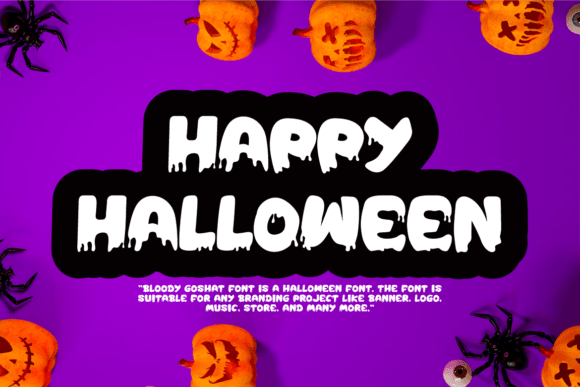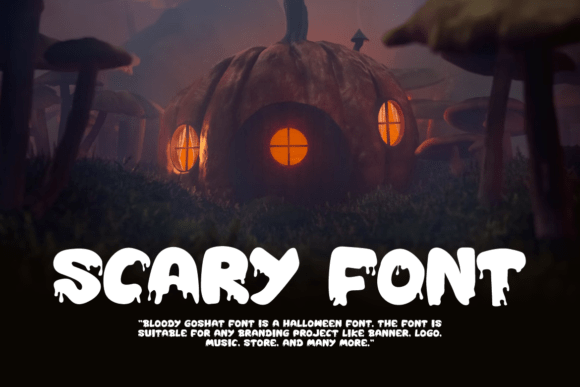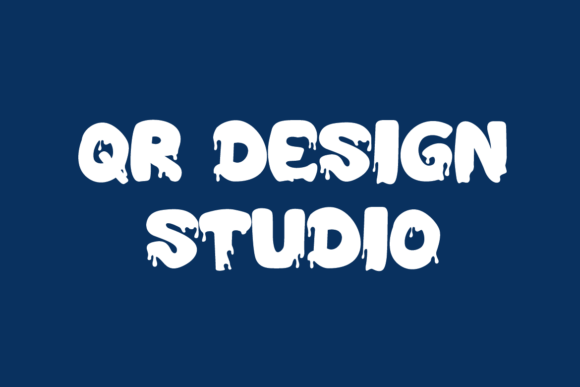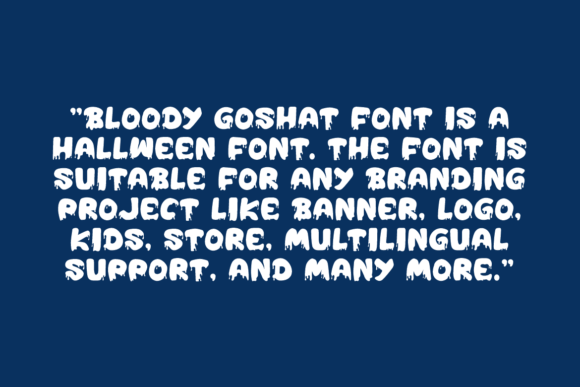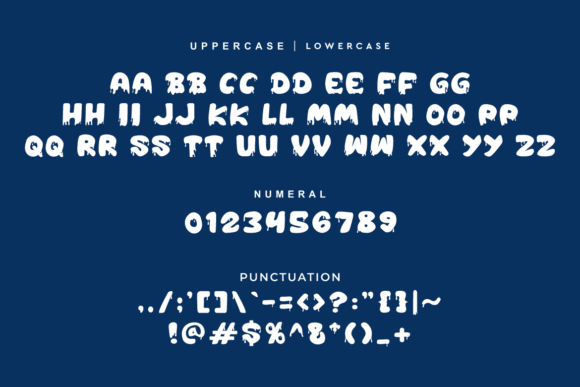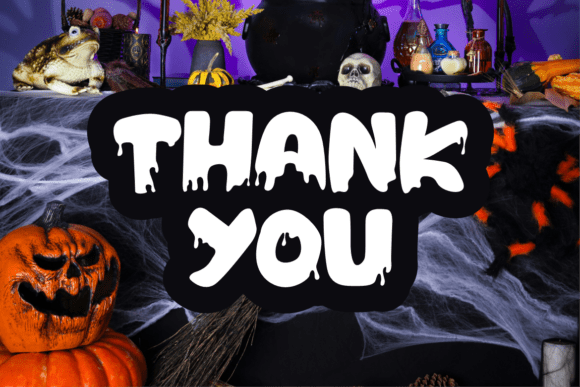
The Perfect Font for Your Creepy Masterpiece
This unique and spooky decorative font is designed to elevate your creative ideas to new heights. With its masterful design, Bloody Goshat Font is the perfect addition to any project that needs a touch of darkness and mystery. Whether you’re a seasoned designer or just starting out, this font has the potential to take your work to the next level.
Bloody Goshat Font Key Features
- Font Family: Bloody Goshat Font is a unique, handwritten font designed for creative and artistic purposes.
- Unique Characteristics: Features a distressed, hand-painted look with irregular brushstrokes and ink bleeds, perfect for adding a touch of raw emotion to designs.
Bloody Goshat Font Review
I was excited to dive into the Bloody Goshat font, but my experience was a mixed bag. Here’s my honest review.
- Unique aesthetic: The Bloody Goshat font has a distinctive, macabre feel that’s perfect for horror or dark-themed projects.
- Good legibility: Despite its unconventional design, the font is surprisingly easy to read, even at smaller font sizes.
- Highly customizable: The font comes with a range of OpenType features and ligatures, allowing for a high degree of customization.
- Limited language support: The font only includes a basic set of Latin characters, which may be a limitation for projects that require support for other languages.
- No bold or italic versions: The font is only available in regular weight, which may make it difficult to use in certain design contexts.
- Some characters feel incomplete: A few characters, such as the lowercase ‘a’ and ‘e’, feel like they’re missing something – possibly due to the font’s experimental nature.
Overall, I’d say the Bloody Goshat font is a great choice for designers who want to add a touch of darkness to their projects. However, its limitations may make it less suitable for more complex design tasks.
Bloody Goshat Font: A Practical Application Guide
For the best results, use the Bloody Goshat Font in bold or italic to add emphasis. Experiment with different font sizes and combinations to create a unique look.
The Bloody Goshat Font is ideal for horror-themed designs, punk rock graphics, and edgy typography. Use it to create attention-grabbing headlines or add a touch of rebellion to your branding.
Alternatives to Bloody Goshat Font
Pacifico is a beautiful, elegant script font perfect for creative and artistic designs. It’s ideal for use in headings, titles, and quotes, adding a touch of sophistication and luxury to any design.
Compared to Bloody Goshat Font, Pacifico is more refined and sophisticated, while Bloody Goshat Font has a more edgy and distressed look.
Great Vibes is a stylish, cursive font that’s perfect for use in invitations, posters, and other creative projects. It’s ideal for adding a touch of elegance and sophistication to any design.
Compared to Bloody Goshat Font, Great Vibes is more elegant and refined, while Bloody Goshat Font has a more grungy and distressed look.
Carolyna Pro is a modern, elegant script font that’s perfect for use in creative and artistic designs. It’s ideal for headings, titles, and quotes, adding a touch of sophistication and luxury to any design.